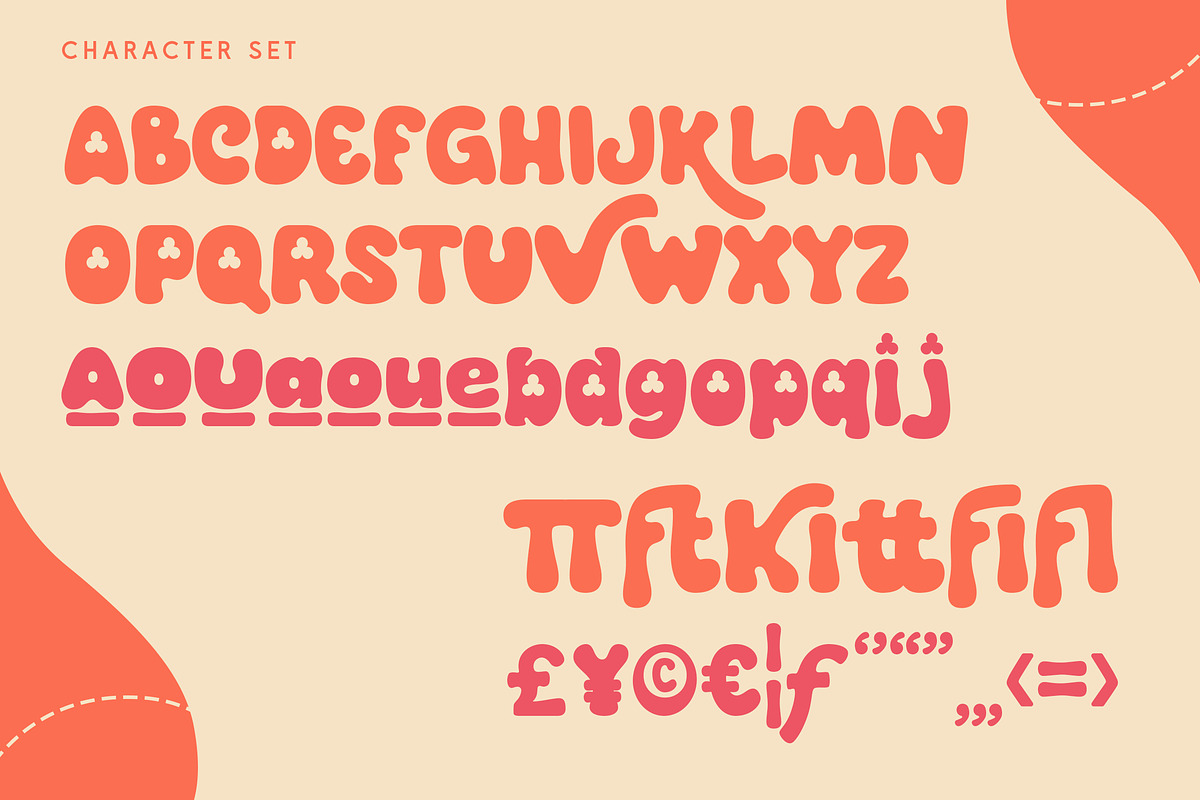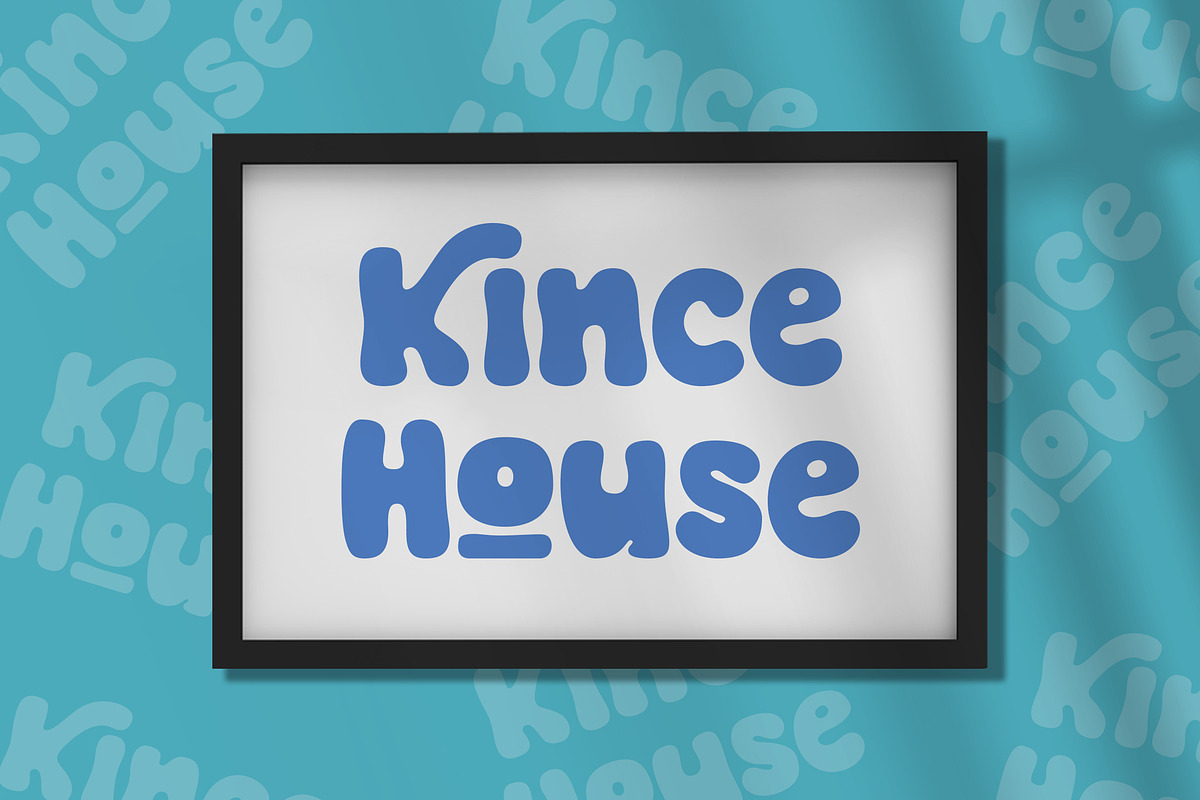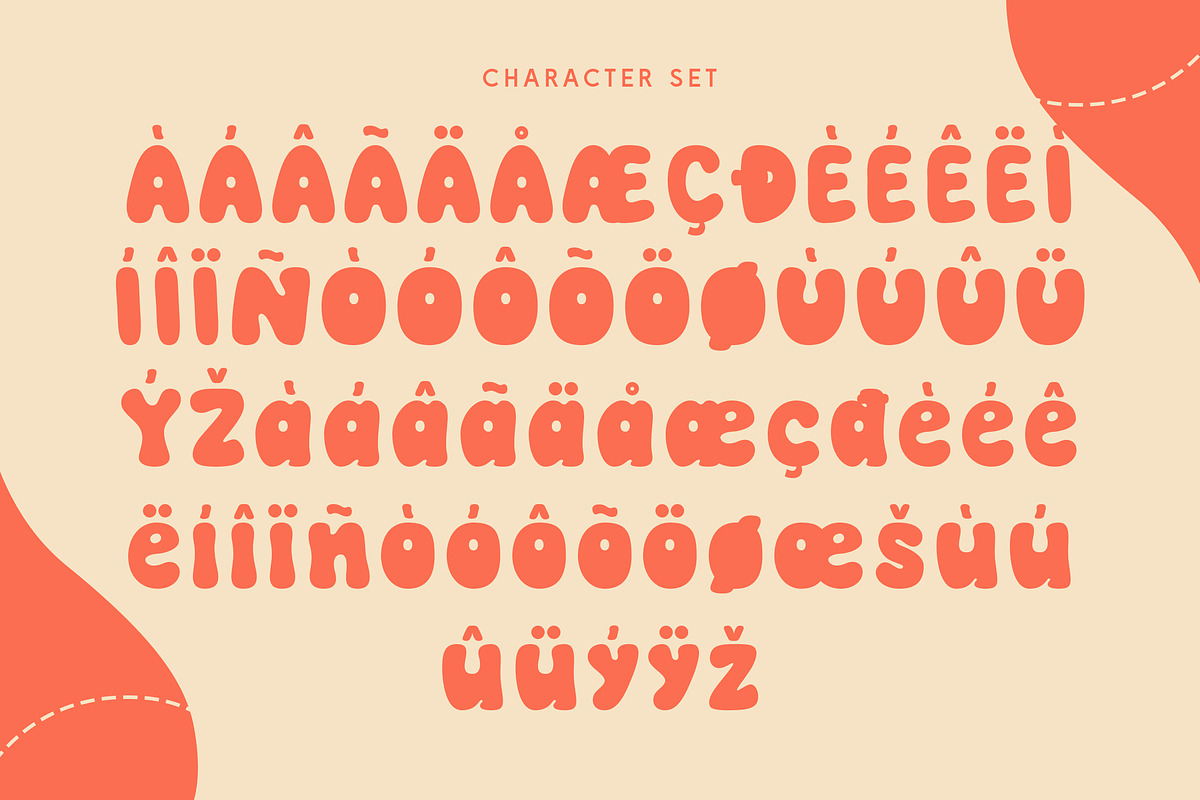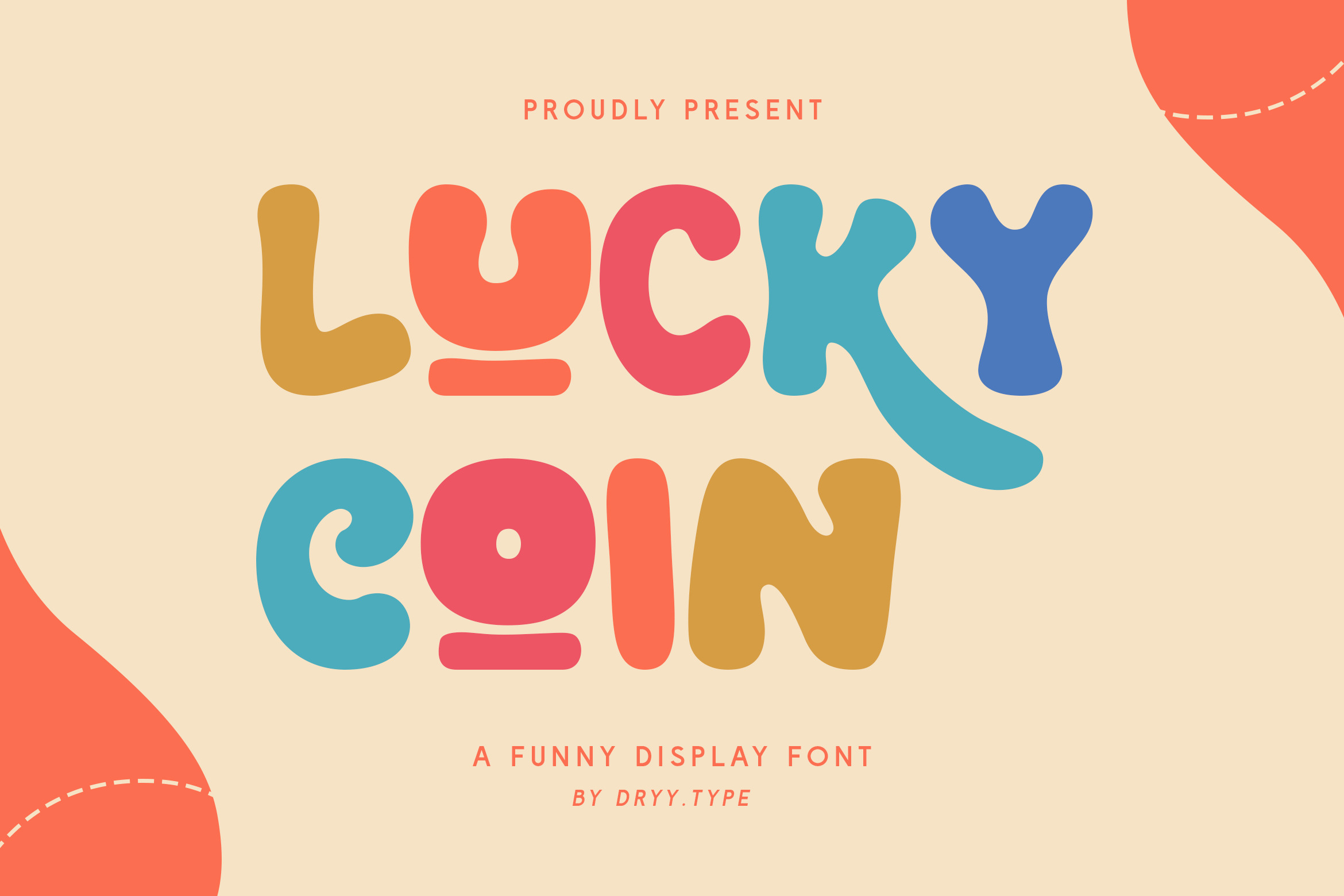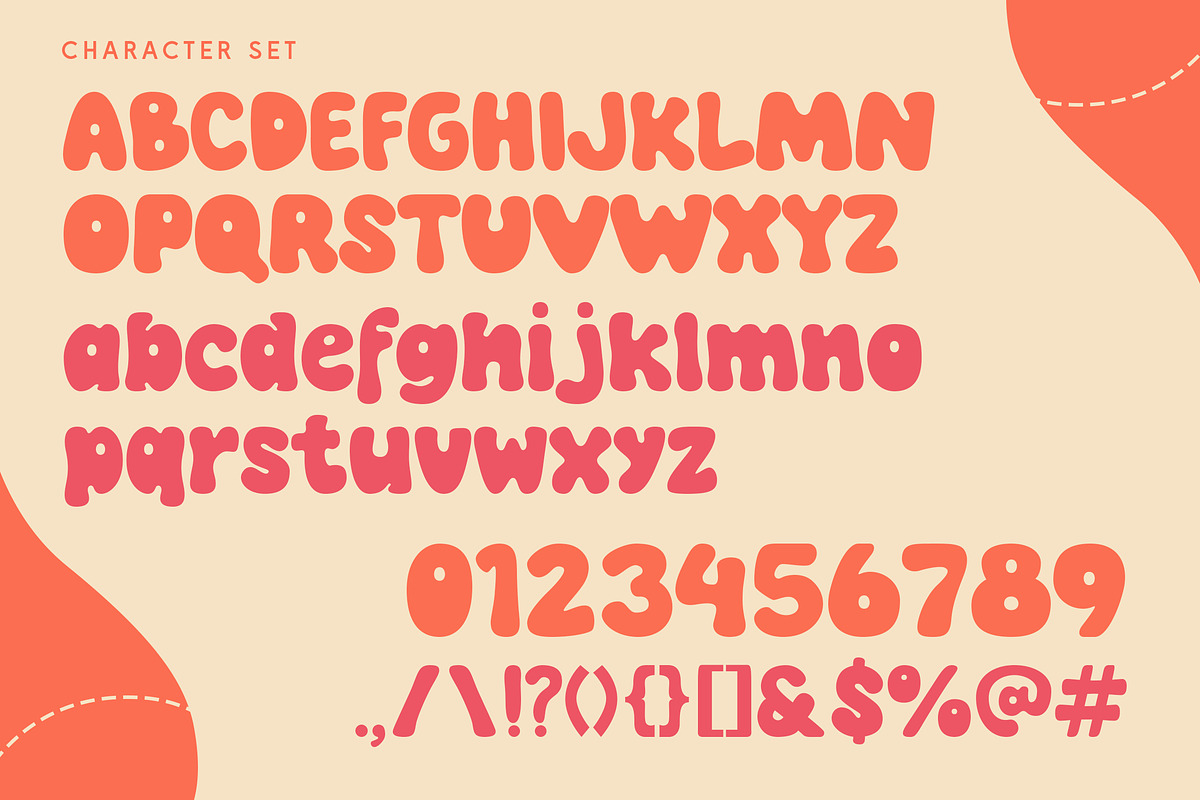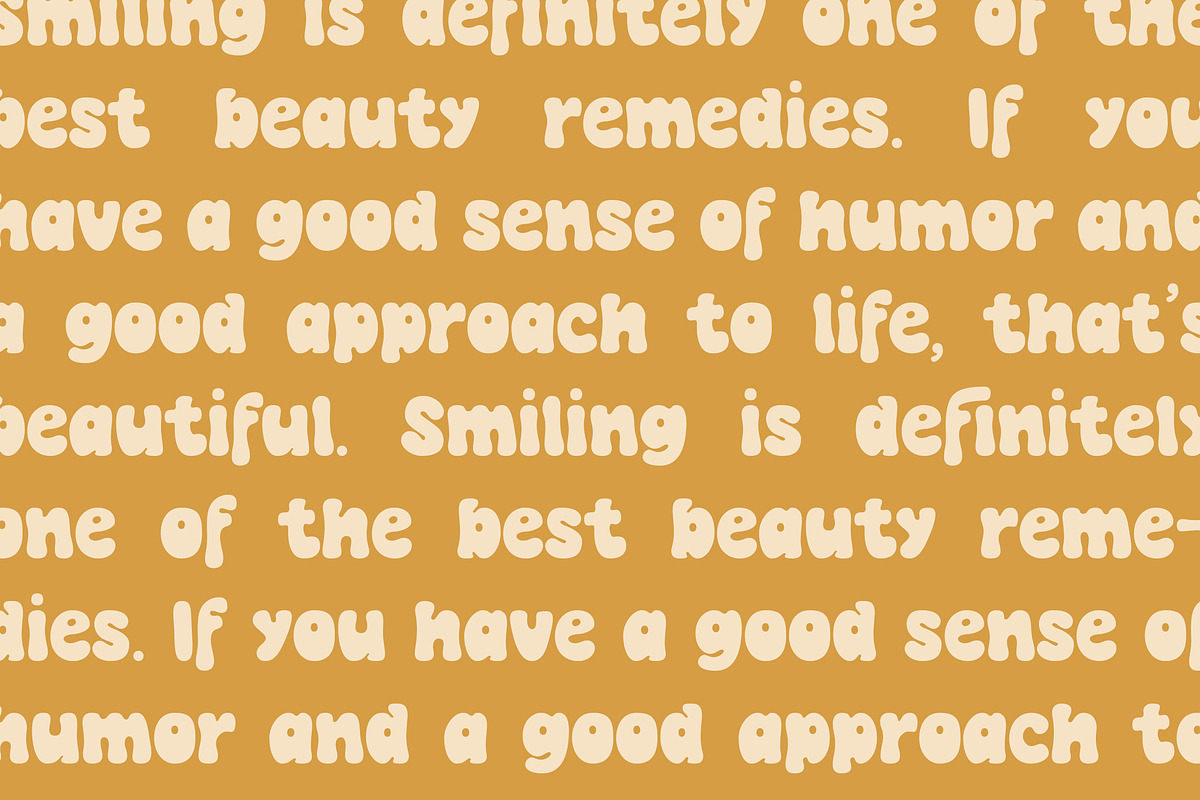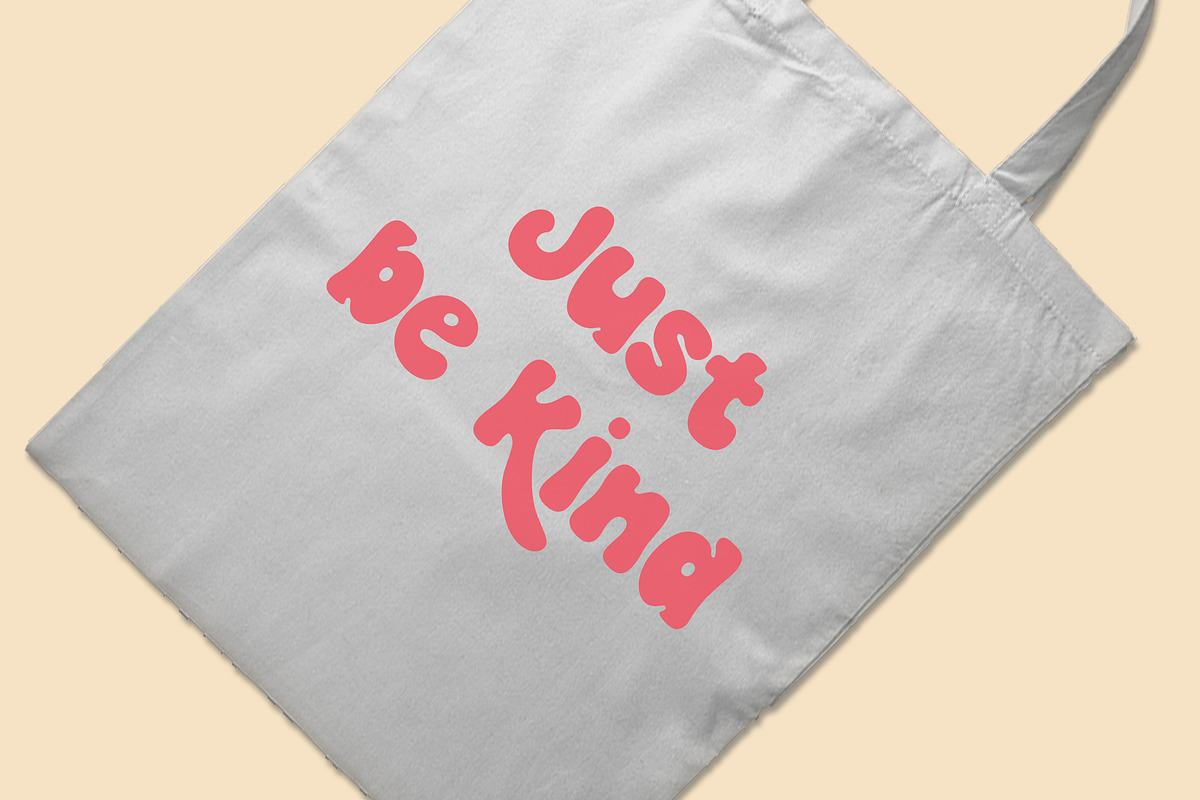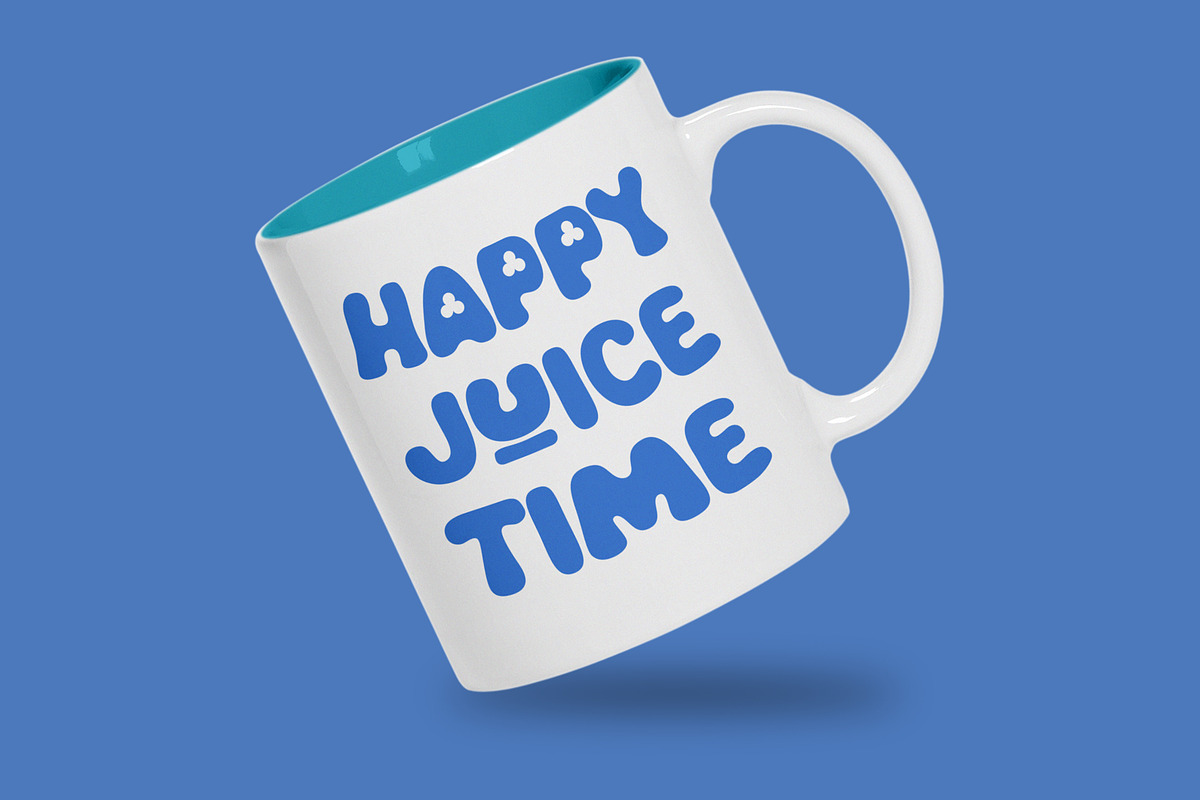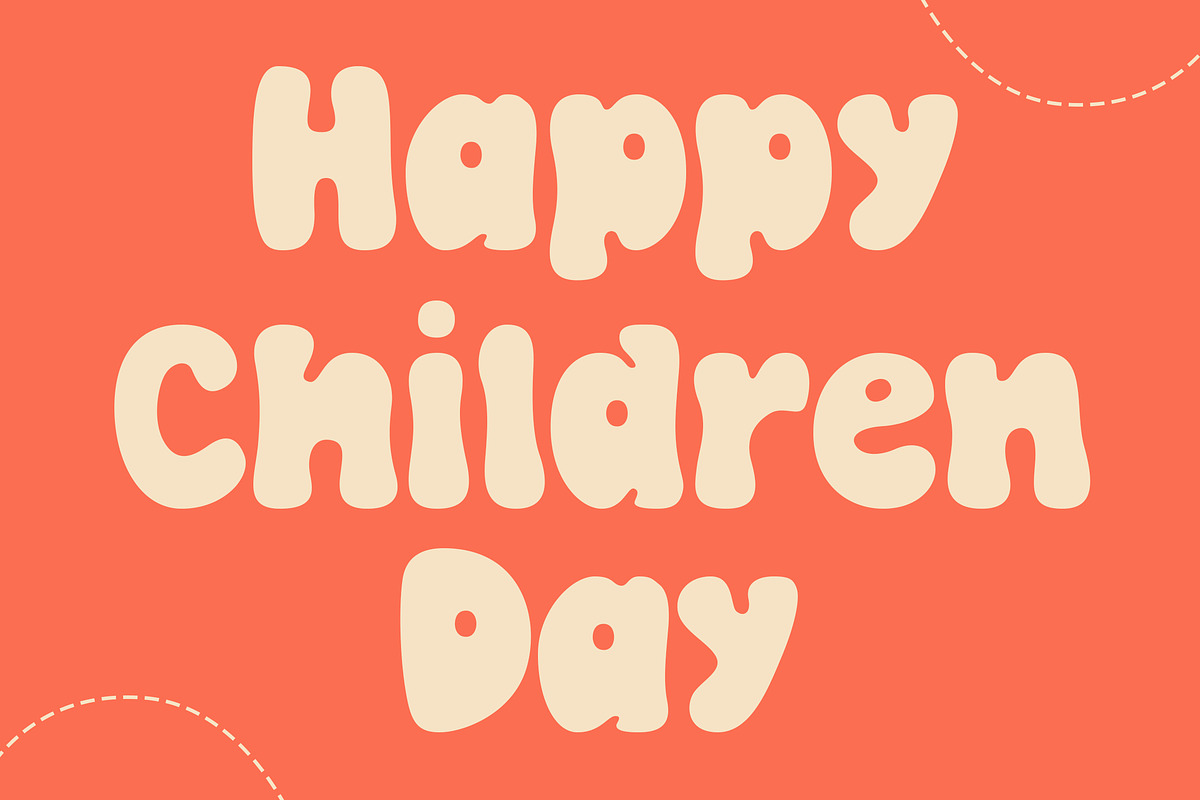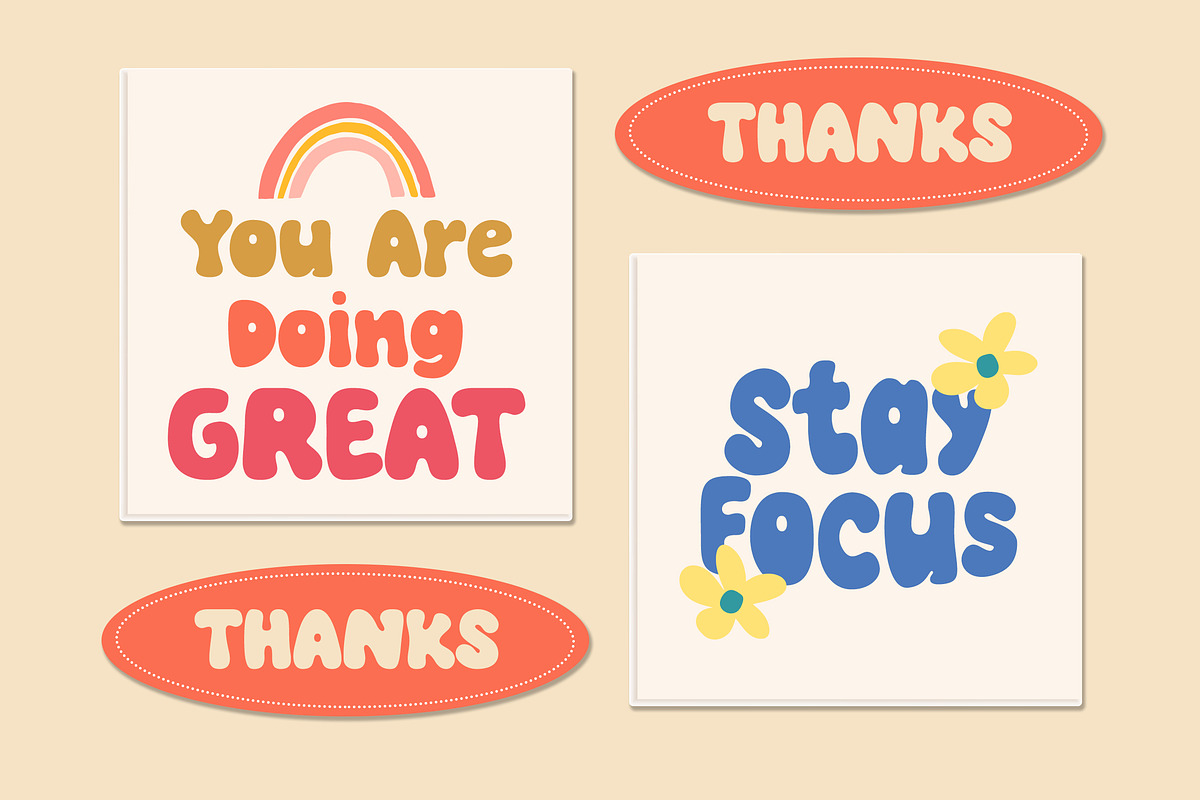
Lucky Coin - Cute Display font
Lucky Coin font is a cute and fun font. This font I created has been very widely used this year & is very versatile, it goes well with a variety of designs, elevating them to the highest level. Add this font to your favorite creative ideas and see the results!
features: uppercase, lowercase, alternates, Ligatures & multilingual There it is! I really hope you enjoy it